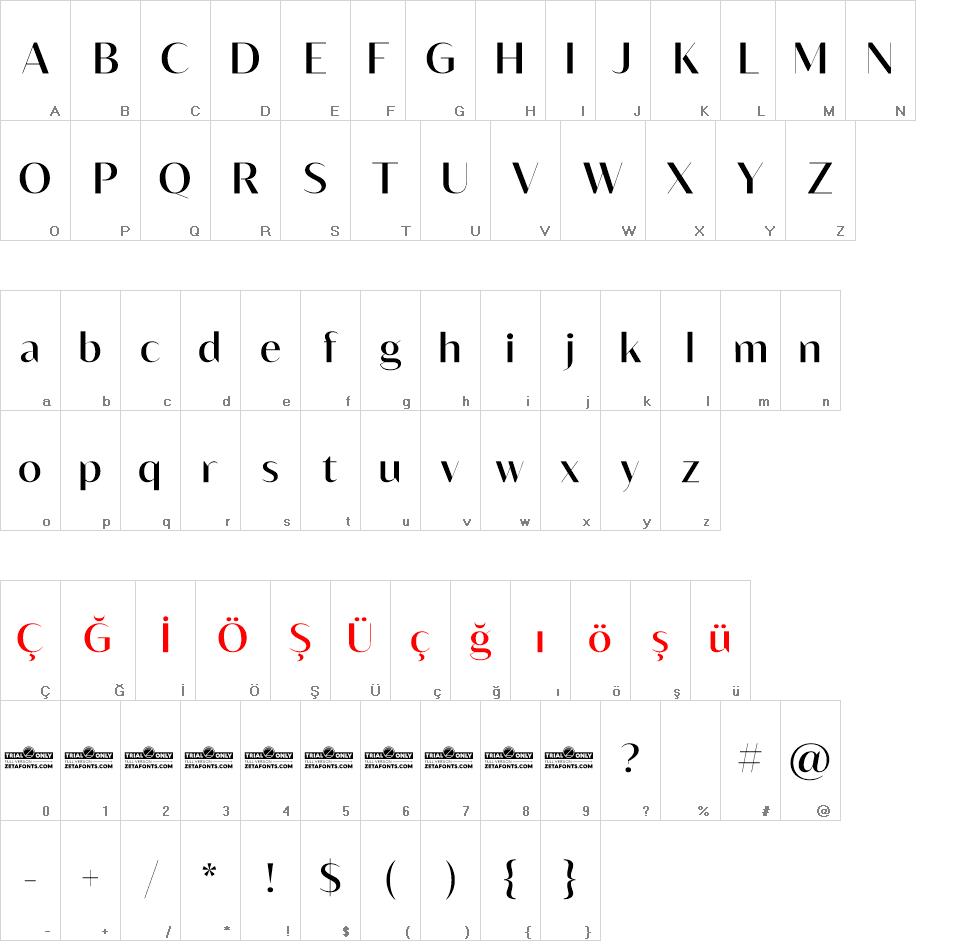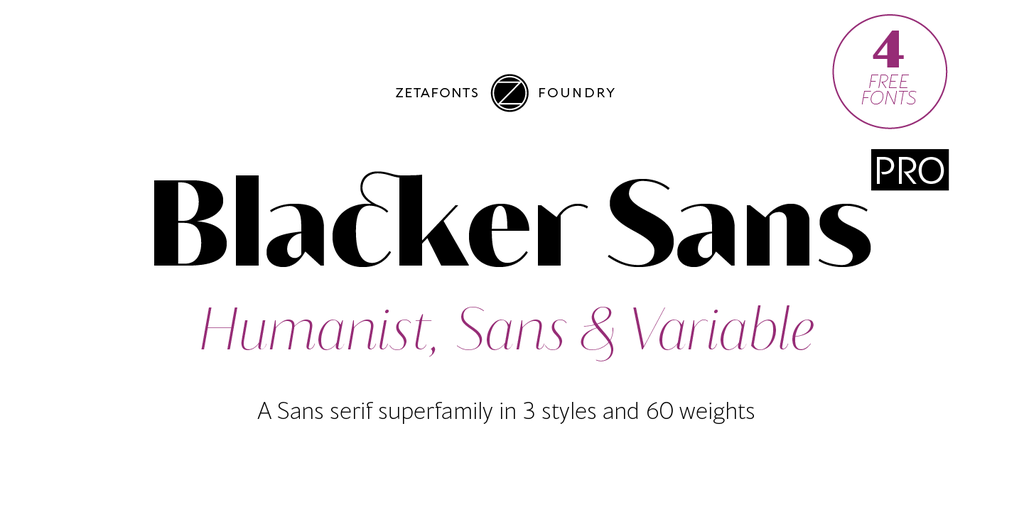
Blacker Sans Display Trial font
Blacker Sans Pro is a complete redesign and developement of the original family designed by Francesco Canovaro in 2019 as a sans-serif variant of the succesfull Blacker created by Cosimo Lorenzo Pancini and Andrea Tartarelli. The original idea of Blacker Sans was to create a versatile pairing for Blacker, parting with its spiky wedge serifs but keeping its dark, elegant character and extending its weight range to 20 weights including italics.
This Blacker Sans Pro family did also differ in contrast from the original Blacker family, choosing a more even and monolinear, almost grotesque approach. This choice that favored versatility over elegance left some of the original uses of Blacker not covered by its sans counterpart, and so two subfamilies were added, applying to the same skeleton varying degrees of contrast, from the readability-optimized medium contrast of Blacker Sans Text to the extreme variations of Blacker Sans Display, with its elegant juxtapositions of thin curves and thick black slabs.
The original signature details of Blacker, like the hook shape of lowercase "f", have been complemented by new alternate forms, ligatures and swashes, with stylistic sets providing options to easily make logos and headings stand out. The wide range of OpenType features (that includes also small caps, positional numbers, and alternate punctuation) is applied to all the 60 weights of the family, each with over 1600 characters offering language support for 220+ languages using Latin, Cyrillic and Greek alphabets.